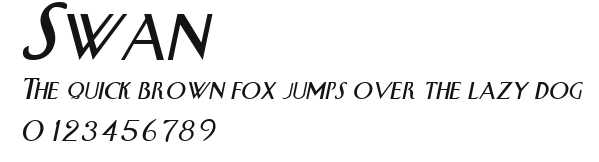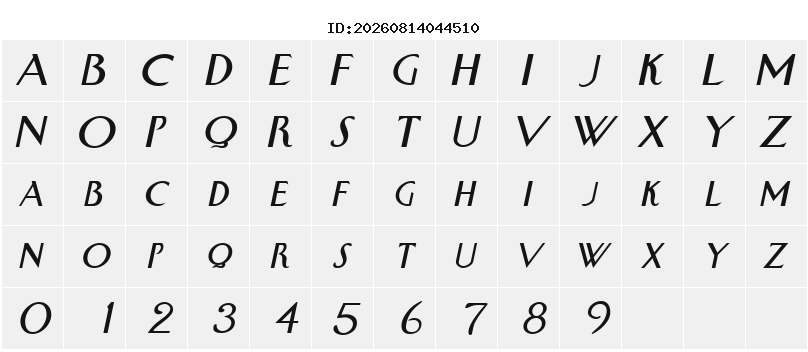
• Font Name: Swan
• Full Font Name: Swan Italic
About Swan.ttf
Swan.ttf is a modern, elegant sans-serif font designed for ultimate readability and visual harmony. Perfect for branding, headlines, web design, and print materials.